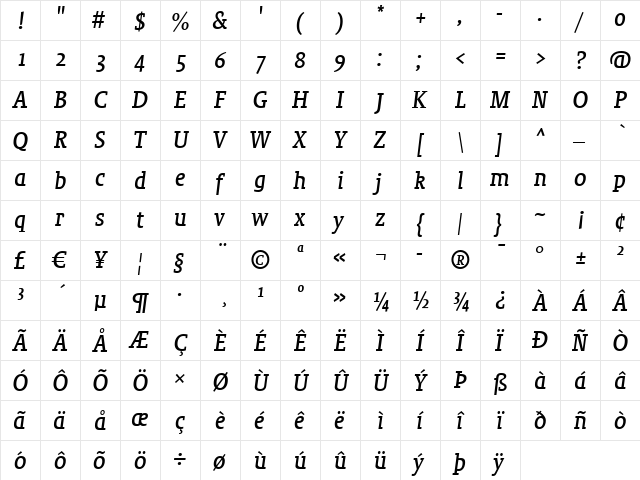
Sheriff Web-Italian Regular
| Designer | Peter Verheul |
Design Context for Sheriff Web-Italian Typeface
Sheriff Web-Italian is a composed and adaptable typeface that performs quietly and consistently across a wide range of design contexts.